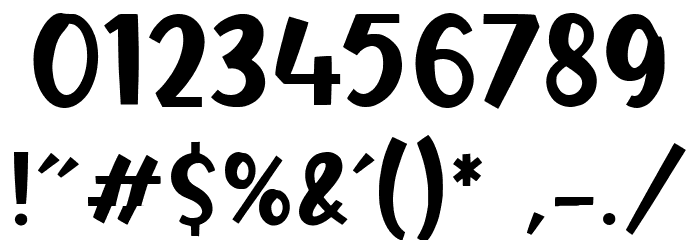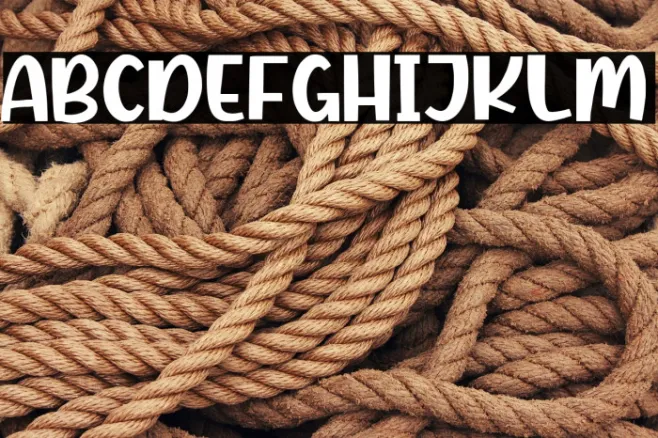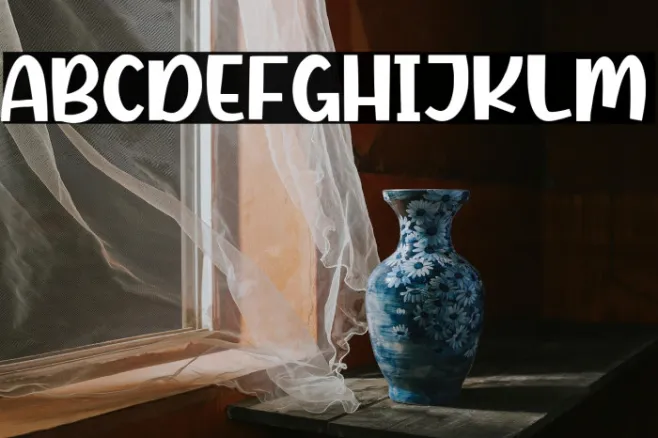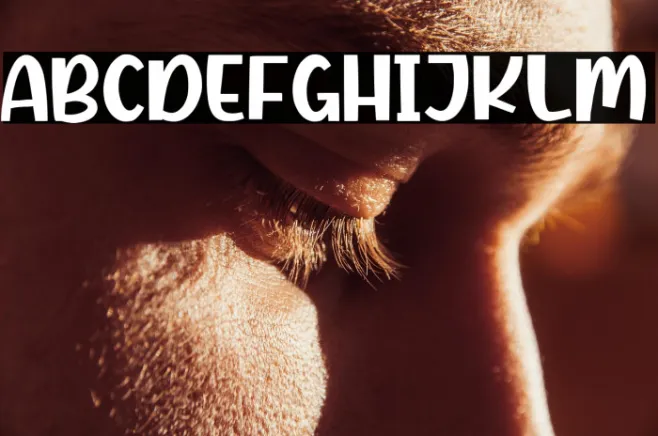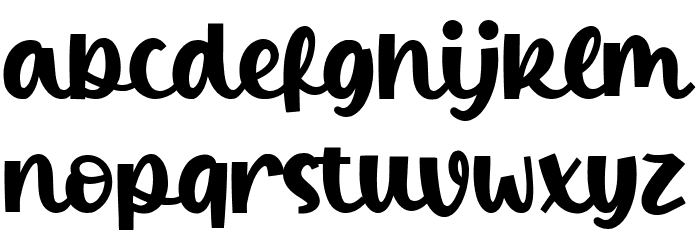
Winter Candle Font
This font features a playful and whimsical style, characterized by its bold and rounded letterforms. The uppercase letters have a consistent height, with a slight slant that adds a dynamic feel. The lowercase letters are more fluid, with smooth curves and loops that enhance its casual appearance. The numerals are bold and easily readable, maintaining the playful aesthetic. Special characters are well-integrated, matching the overall style with a touch of creativity. This font's unique charm makes it suitable for projects that require a friendly and approachable look.
A playful, bold font with rounded, dynamic letterforms.
• Proposed Projects: Ideal for children's books, playful branding, greeting cards, and casual invitations.
• Category: Decorative/Display
• Bold: Yes
• Italic: No
• Weight: Bold
• Width: Normal
• Character Spacing: Normal
• Contrast: Low
• Overall Style: Playful
• Use Case: Headlines, Logos, Posters